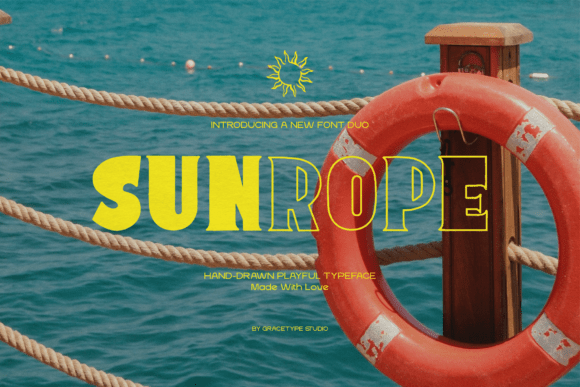
Sunrope Duo: A Playful Hand-Drawn Typeface
There is a distinct energy in the way light hits the water on a summer afternoon, a feeling of warmth and unstructured freedom that many brands strive to capture. Typography often acts as the visual anchor for this emotion, yet finding a font that balances structural integrity with a carefree spirit can be difficult. Sunrope Duo arrives as a solution to this design challenge, offering a handcrafted typeface that merges the reliability of geometric forms with the charm of human imperfection. It is not merely a decorative script; it is a robust display font designed to communicate joy, movement, and approachability without sacrificing readability.
The Dual Nature of Sunrope Duo
What sets Sunrope Duo apart from standard slab serifs or generic hand-drawn fonts is its inherent duality. As the name suggests, this family comes in two distinct but harmonious weights: a bold, solid version and a trendy outline style. This pairing is intentional, providing designers with immediate tools for layering and depth creation. In modern graphic design, flat text often struggles to command attention against complex backgrounds. By utilizing the solid version for impact and the outline for framing, you can create headers that pop instantly, guiding the viewer's eye with clarity and style.
The underlying structure of the font is all-caps, which lends itself naturally to headlines and logos where authority and visibility are paramount. However, the rigid geometry of a traditional sans-serif is softened by deliberate, hand-drawn irregularities. These subtle wobbles and uneven strokes prevent the text from feeling mechanical or cold. Instead, they inject a sense of authenticity, making the brand feel accessible and human. This balance between strong form and playful execution makes Sunrope Duo an excellent choice for projects that need to stand out while remaining friendly.
Creative Applications for Coastal and Lifestyle Brands
While the aesthetic of Sunrope Duo evokes coastal imagery, its utility extends far beyond beach towels and sunscreen labels. The slightly retro, chunky slab-serif feel connects well with vintage-inspired trends, making it versatile for various lifestyle sectors. For resort managers or travel bloggers, this font serves as a perfect vehicle for conveying the promise of relaxation. Imagine a social media graphic announcing a new summer package; using the outline style behind a vibrant photo of a sunset creates a frame that feels organic rather than imposed.
In the realm of music and entertainment, the font's bold nature makes it ideal for album covers, festival posters, and event flyers. The heavy weight ensures legibility even at small sizes on merchandise like t-shirts or tote bags, while the hand-drawn character adds a touch of indie credibility. Musicians and bands looking to project a laid-back, summer-vibe image can use the solid version for track titles or band names, ensuring their branding cuts through the noise of digital streaming platforms.
- Resort Logos: Use the solid weight for the main brand name to establish presence, paired with the outline for taglines to add depth.
- Merchandise Design: Apply the font to apparel where high contrast is needed; the thick strokes hold up well during screen printing processes.
- Social Media Headers: Create consistent templates for Instagram stories or Pinterest pins using the duo to maintain a recognizable brand voice.
- Event Invitations: Leverage the playful aspect for wedding invitations or party flyers that require a fun, non-traditional tone.
Layering Techniques for Maximum Impact
One of the most powerful features of Sunrope Duo is the ability to layer the two styles effectively. When designing a header, placing the outline version slightly offset behind the solid text creates a drop-shadow effect that feels more dynamic than a standard shadow filter. This technique adds dimensionality without cluttering the design. For instance, if you are designing a banner for a summer sale, set the solid text in white over a bright orange background, then place the outline in a darker shade of orange just below and to the right. This simple adjustment mimics the natural play of light and shadow, enhancing the "sun-drenched" vibe inherent to the font's design.
Designers should also experiment with color palettes that complement the font's warm associations. While bright yellows and ocean blues are obvious choices, don't shy away from earth tones or muted pastels. The geometric strength of the letters allows them to remain legible even when paired with softer, less saturated colors. This flexibility ensures that Sunrope Duo can adapt to both high-energy marketing campaigns and more subdued, sophisticated branding efforts.
Adapting the Font for Different Audiences
Different user groups can leverage this typeface to meet specific communication goals. For small business owners launching a new product line, the font offers a quick way to establish a personality-driven brand identity. Unlike corporate sans-serifs that can feel impersonal, Sunrope Duo signals that the business values creativity and connection. Entrepreneurs in the food and beverage industry, particularly those focusing on fresh, seasonal ingredients, can use the font on menus and packaging to emphasize the "hand-made" quality of their offerings.
Marketers and content creators will find the multilingual support and full punctuation set invaluable for global campaigns. Whether you are creating content for a local community blog or an international travel site, the font supports a wide range of characters, ensuring your message remains inclusive and accessible. Educators and hobbyists might use it for workshop materials, course certificates, or craft guides where a welcoming tone is essential to encourage participation. The font's approachable nature lowers the barrier to entry, making the content feel less academic and more inviting.
Maintaining Clarity and Consistency
While the playful nature of Sunrope Duo encourages experimentation, maintaining design consistency is crucial for professional results. Because the font is a display typeface, it should primarily be reserved for headlines, titles, and short phrases. Using it for long blocks of body text can strain the reader's eyes due to the all-caps format and the decorative details. To keep your designs organized, pair Sunrope Duo with a clean, neutral sans-serif or serif font for paragraphs and detailed information. This combination ensures that the playful headline grabs attention while the supporting text remains easy to digest.
Consistency also applies to how you apply the font across different platforms. If you choose to use the outline style for your website headers, ensure that your social media graphics and email newsletters follow the same hierarchy. Avoid mixing the solid and outline versions randomly within a single composition unless there is a clear visual reason for doing so. By establishing a strict set of rules for how the font is used, you build a cohesive visual language that audiences can recognize and trust.
Practical Tips for Implementation
When integrating Sunrope Duo into your workflow, consider the context of the final medium. On mobile screens, the bold solid version performs exceptionally well, ensuring that key messages are readable even on small devices. However, on print materials with lower resolution paper, the outline style might benefit from a slight increase in stroke weight or a contrasting background to ensure crispness. Always test your designs at actual size before finalizing them.
Furthermore, remember that the "hand-drawn" aspect implies a certain level of spontaneity. Do not force the text to look too perfect. Allow the natural variations in the letterforms to shine, and avoid over-styling with excessive effects that might obscure the font's unique character. The beauty of Sunrope Duo lies in its genuine, imperfect charm. By respecting its design intent, you can create work that feels authentic, engaging, and perfectly suited for the next big adventure in your creative journey.